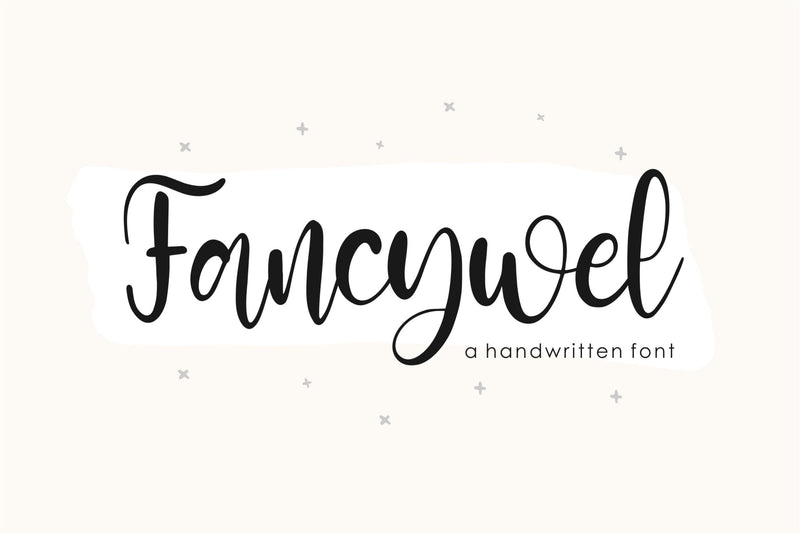
Fancywel
Introdycing by Qwrtype
Proudly Present, Fancywel
Fancywel is a Handwritten Font
Fancywel is perfect for product packaging, branding project, megazine, social media, wedding, or just used to express words above the background.